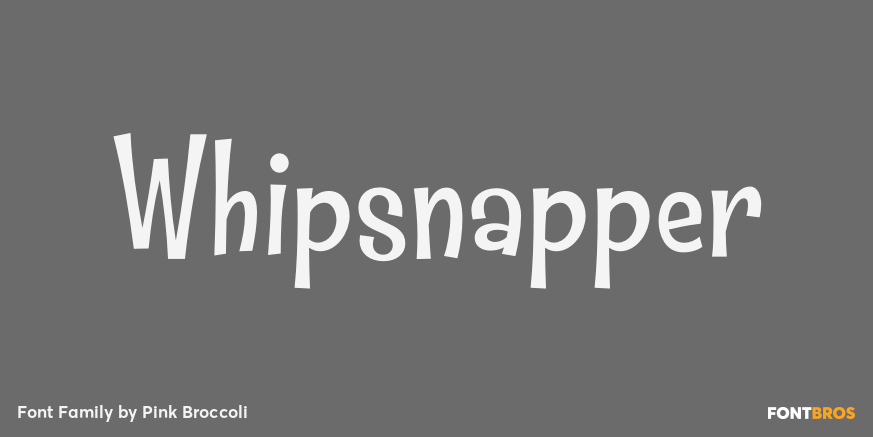
About Whipsnapper
A wild at heart offbeat sansserif family inspired not by any single pulp or vintage source but a varied collection of influences. Just an all-around fun typeface with the widths and weights to offer a wide variety of uses.